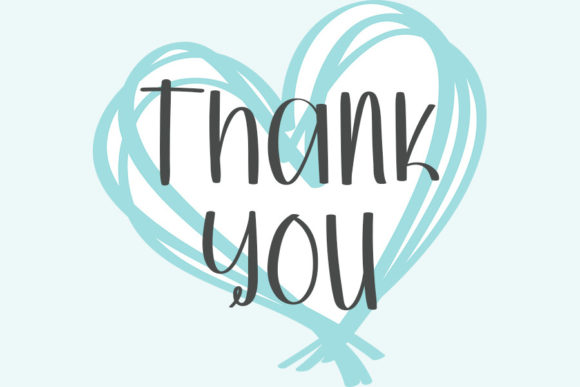
Introduction to Skinny Cute Font
You’ve spent hours crafting the perfect design for your friend’s birthday card, but something’s missing. The words just aren’t conveying the same level of personality and charm as you envisioned. This is where the right font can make all the difference, and that’s exactly where Skinny Cute Font comes in.
This high-quality, free download font is a game-changer for any creative project. Its cute and informal handwritten style is perfect for adding a touch of whimsy to your designs. Whether you’re working on a branding project, creating labels, or simply making a card for a loved one, Skinny Cute Font is sure to elevate your work and make it stand out.
Key Features of Skinny Cute Font
- High-quality design: Skinny Cute Font is a well-crafted typeface ideal for creative projects requiring a delicate and charming look.
- Unique characteristics: This font features a distinctive, hand-drawn aesthetic with elegant lines and subtle flourishes, adding a touch of whimsy to any design project.
- Resolution and size: Skinny Cute Font is designed to be used at various resolutions and sizes, from small text to large headings, making it a flexible design resource.
- Suitable for creative projects: Skinny Cute Font is perfect for designers working on wedding invitations, greeting cards, children’s books, and other creative projects that require a playful and charming aesthetic.
Honest Review: Skinny Cute Font
I recently stumbled upon the Skinny Cute Font and I must say it’s been a great addition to my design resources. As a designer, I’m always on the lookout for high quality fonts that can elevate my creative projects.
- High quality design that looks great on any device
- Easy to customize and use in various creative projects
However, I do have to mention a few limitations:
- Some users may find the font too thin or delicate
- Not ideal for print designs or large-scale applications
Overall, I’m impressed with the Skinny Cute Font and I would definitely recommend it to fellow designers. Its high quality design and free download make it a valuable resource for any creative project. ⭐️⭐️⭐️⭐️⭐️
Tips for Getting the Most Out of Skinny Cute Font
For a high-quality look, pair Skinny Cute Font with a transparent background to create a clean and minimalist design. This font is perfect for creative projects, such as social media graphics, blog posts, and infographics.
Skinny Cute Font is ideal for use in digital design, including social media posts, blog titles, and headings. It’s also great for creating a cohesive brand identity for your business or personal project.